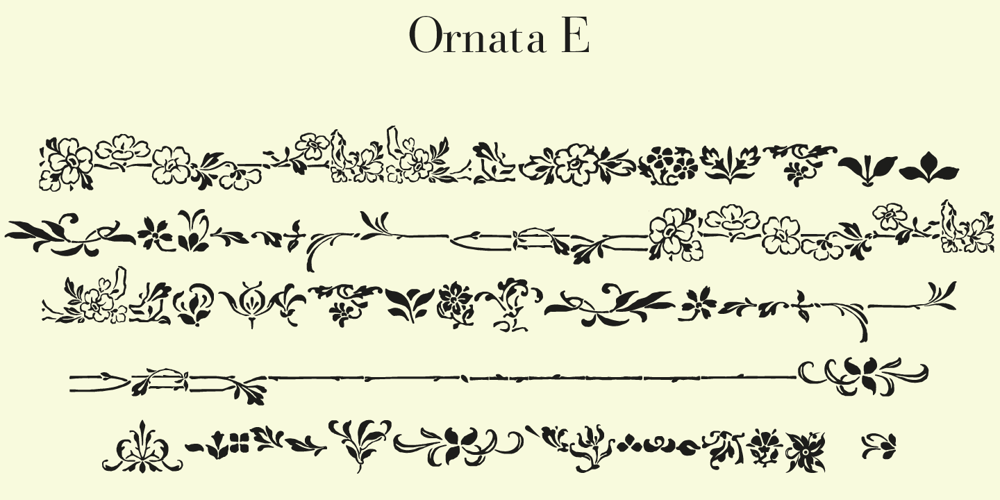
Ornata E Font Family was designed by Gert Wiescher and published by Wiescher Design. Ornata E contains 1 styles and family package options. Ornata E is the fifth of a series of old ornaments that I am trying to save from oblivion. I am completely redesigning the ornaments from scratch, trying in this one to keep the rough “letterpress” character. These ornaments were designed around 1910, I could not find out by whom. This set is perfect to design flowery frames since it has an enormous amount of flowery things. Your digitizing type-designing savior, Gert Wiescher